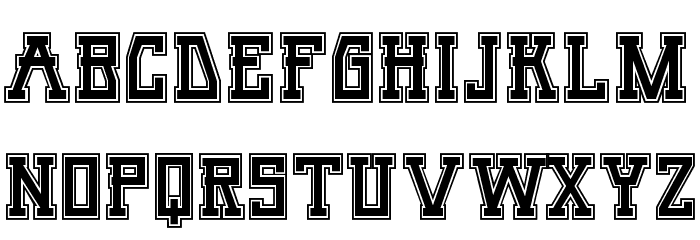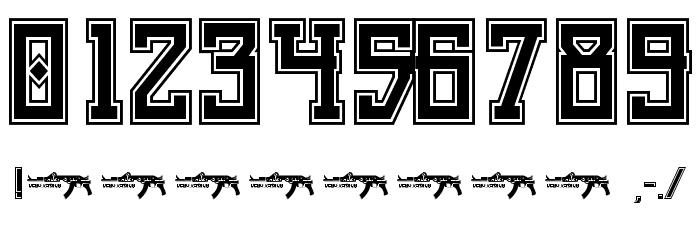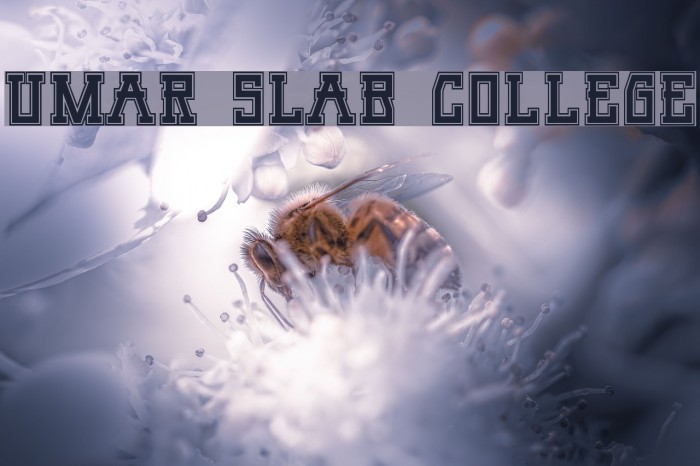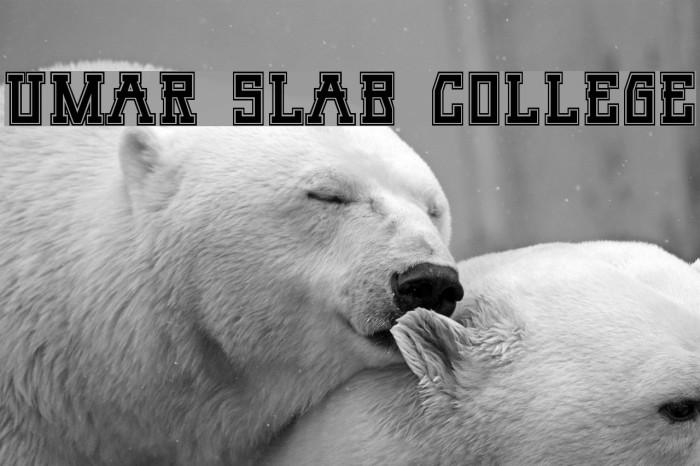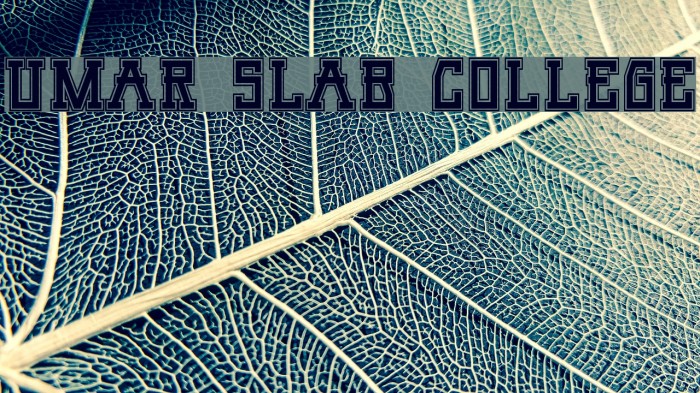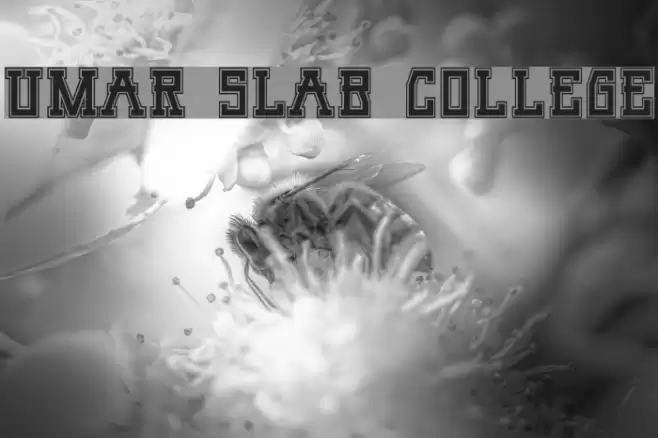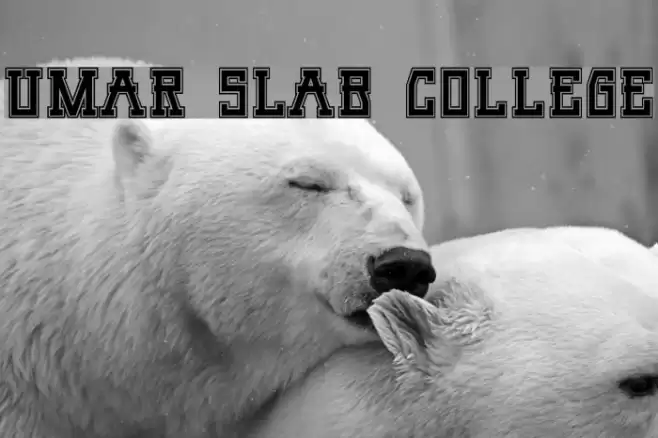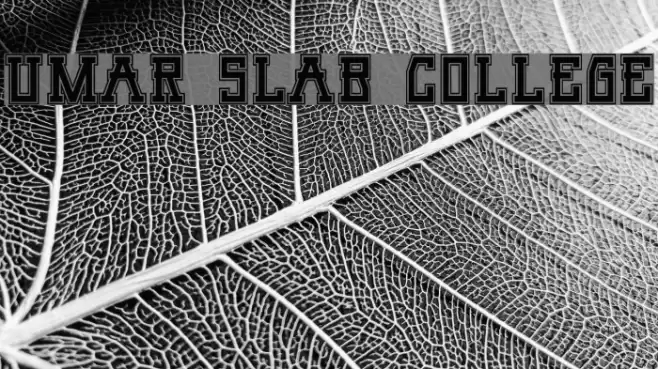
Umar Slab College Font
This font features a bold, collegiate style with strong, angular serifs and a distinct slab serif design. The characters are outlined, providing a striking contrast between the thick, solid strokes and the inner spaces. The uppercase letters are prominent and commanding, while the lowercase letters maintain the same robust style. The numbers are equally bold, ensuring consistency across all characters. This font's design is reminiscent of traditional college or varsity lettering, making it ideal for projects that require a sense of strength and tradition.
A bold, collegiate slab serif font with outlined characters and strong serifs.
- Proposed Projects: Ideal for sports team branding, college-themed apparel, posters, and banners.
- Overall Style: Classic